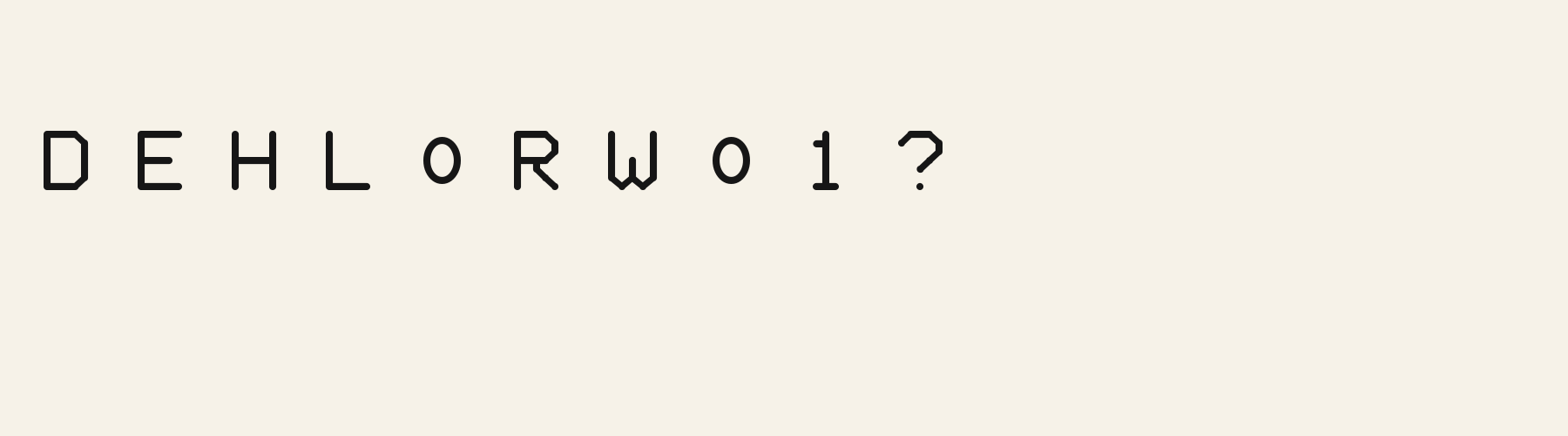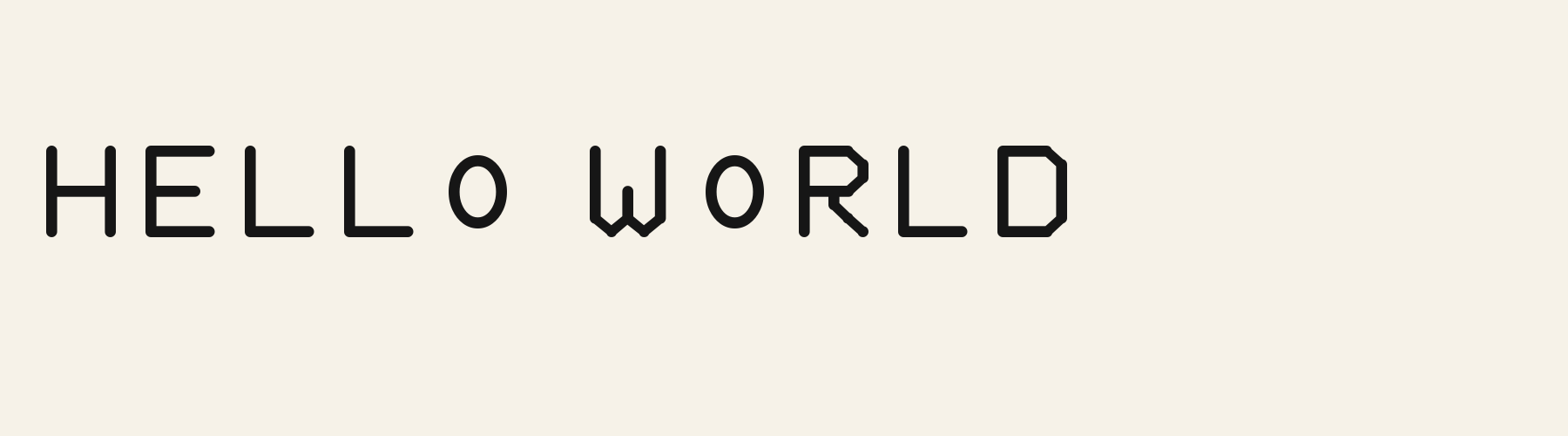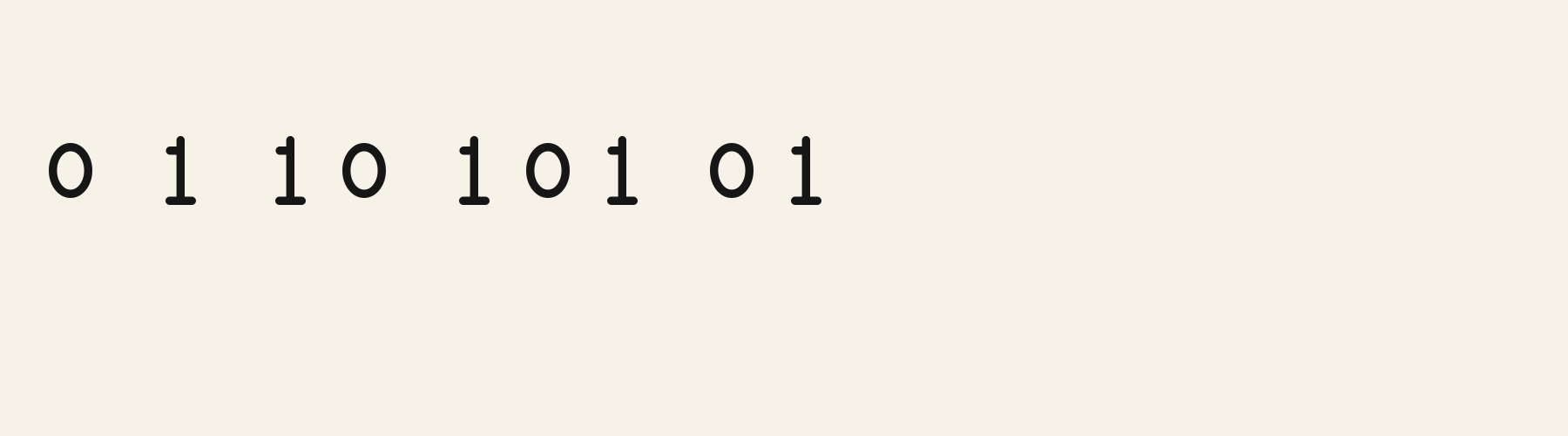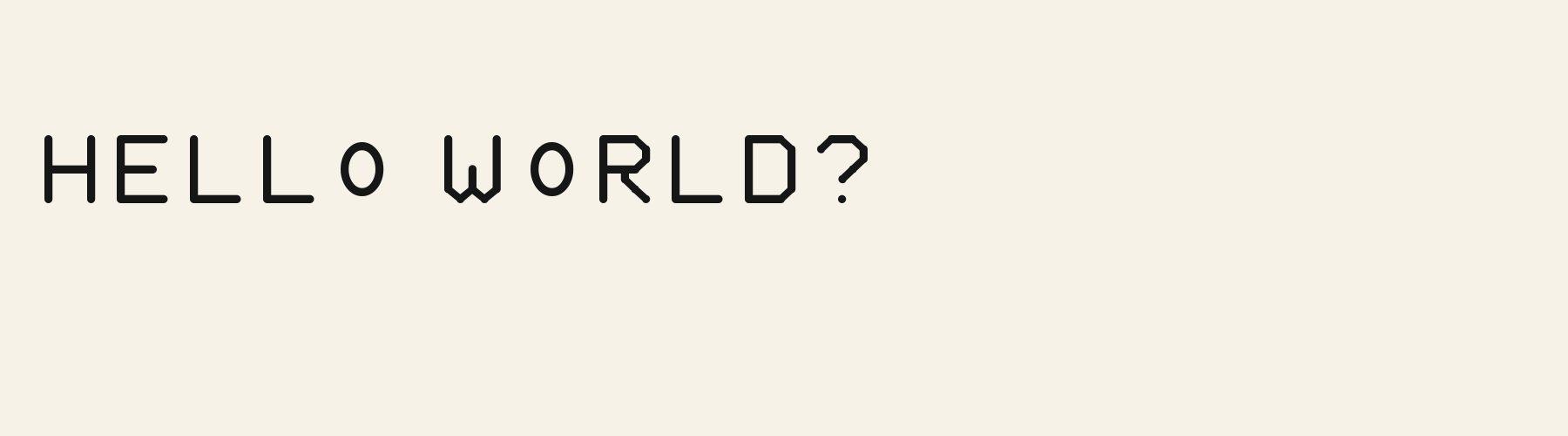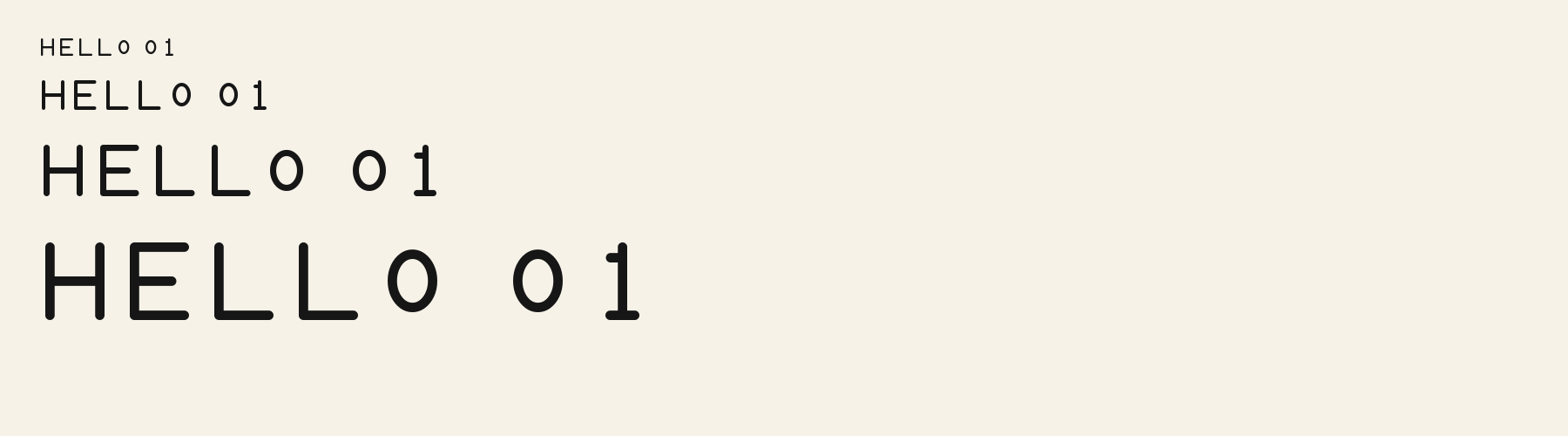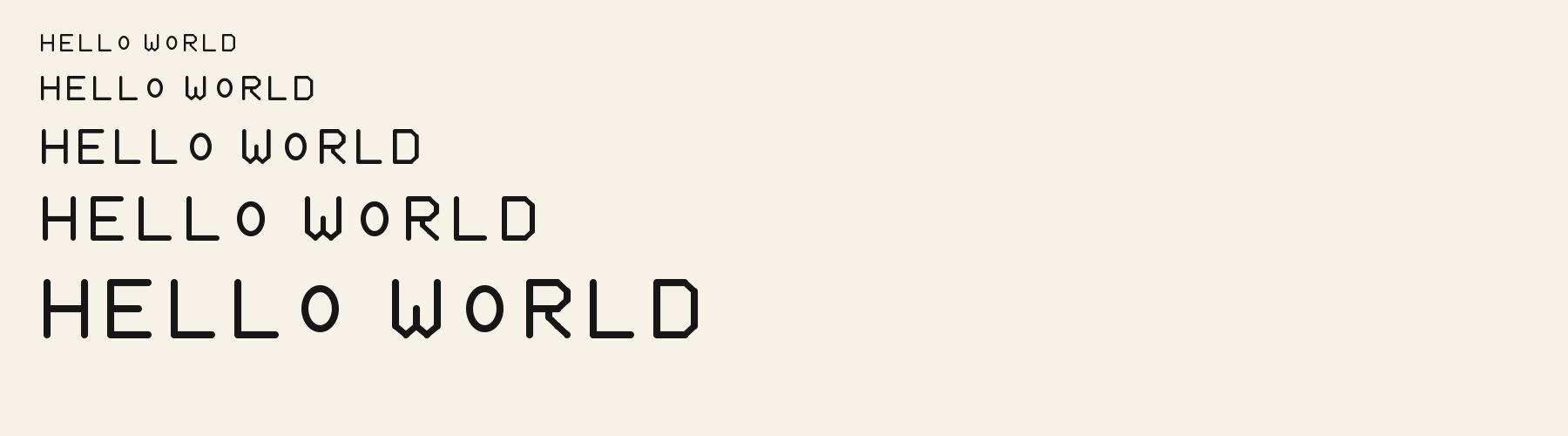
Rounded Bauhaus Soft combines straight, evenly weighted strokes with clipped corners and gently rounded ends.
Rounded Bauhaus Soft combines straight, evenly weighted strokes with clipped corners and gently rounded ends. The A has a flat roof and diagonal upper corners, giving its open interior a house-like outline. The M folds inward from short shoulders to a shallow central notch, with a little vertical extension beneath the join. In contrast, the lowercase o is a small, nearly circular ring, noticeably shorter than the tall stems around it. Generous spacing lets these different constructions stand apart. The result feels playful and orderly, with an angular drawing rhythm softened by smooth terminals and simple circular bowls.
Check words containing o beside tall stems, repeated l forms, and descending g or j. Inspect whether the angular e stays distinct as the preview gets smaller. These observations concern the Latin specimens; preview other scripts separately using your actual text.
Try this face for short headings, with a compact serif for descriptions and supporting labels. Its widely spaced geometric letters establish the display voice, while more conventional text shapes could help longer passages hold together. Test both in the intended layout.
Compare the original spacing with a wider setting. The small circular o and narrow, footed l already leave generous gaps; extra tracking can separate these shapes enough to weaken the words.
In uppercase HELLO WORLD, straight H uprights and flat L feet give the line a steady framework. The smaller oval O sits inside the capital height, while D uses clipped corners around an angular counter.
The x-height is a compact 70.7% of the cap height, below the 74.4% median for display fonts, lower than 88 of the 116 other display fonts. Ascenders on b, d, h, k and l line up with the capitals (100% of their height), and descenders on g, j, p, q and y drop 29.3% of the cap height below the baseline, deeper than 106 of the 116 other display fonts. It sets wide: an average lowercase letter, spacing included, is 107.7% as wide as the capitals are tall (an average capital, 108.4%), 23.7% more than the median for display fonts, so the same words take a longer line. The o is close to a circle, 1.07 times as wide as it is tall, and M and W are the widest capitals, at 1.12 times the width of H. The O stops 10.1% of the cap height short of H and stands 10.1% above the baseline.
The letters stand upright, leaning less than 2.5° either way. Vertical stems measure 12.1% of the cap height, lighter than 56 of the 58 other display fonts. Ink covers 22.3% of each lowercase letter's box (its advance width by the cap height), lighter than 102 of the 116 other display fonts. Strokes keep one thickness in every direction: the sides of o and O measure the same as their tops and bottoms.
Its 320 characters include 277 Latin letters, plus 43 figures, punctuation marks and symbols; 225 of the Latin letters are accented or special forms beyond A to Z. The word space measures 52.4% of the cap height, and the blank space either side of a lowercase letter takes up 33.5% of its width. The font carries no kerning, so spacing comes from each letter’s own side bearings. All ten figures share one width, so columns of numbers line up.